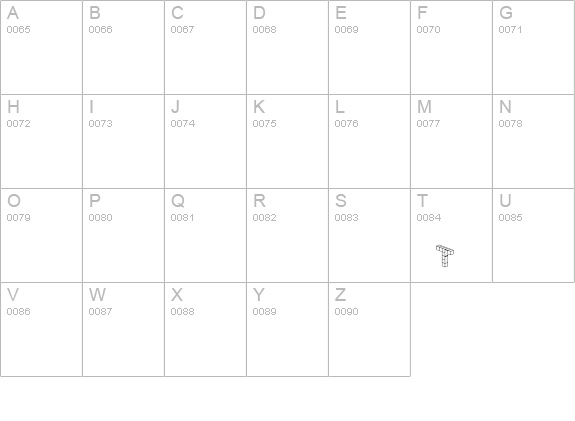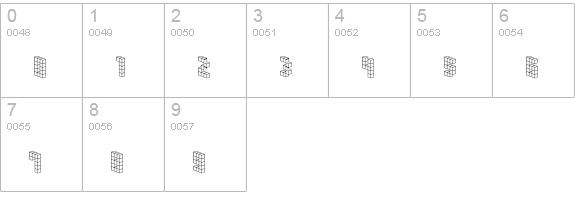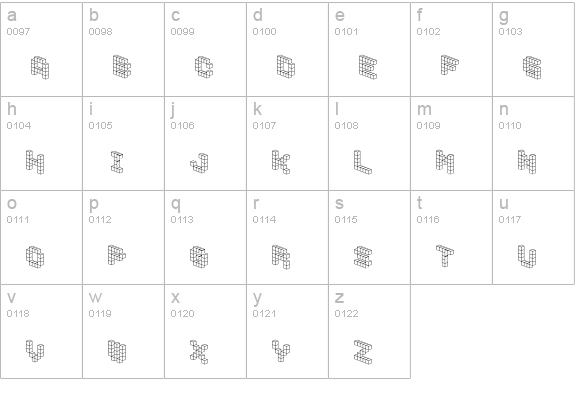
DemonCubicBlockFont Font Details
DemonCubicBlockFont is a visually striking and unique font that will add a touch of boldness and creativity to any project. This font features a captivating combination of sharp edges and geometric shapes, giving it a distinct and powerful appearance. With its cubic block design, it evokes a sense of strength and solidity, making it perfect for designs that require a strong visual impact. Whether you are designing a poster, logo, or any other creative project, DemonCubicBlockFont will undoubtedly make a lasting impression. Its clean and precise lines, combined with its modern and edgy aesthetic, make it a versatile choice for a wide range of design purposes. And the best part is, DemonCubicBlockFont is available for free! You can easily download this font from FontsMarket.com. This means that you can enhance your designs without having to worry about breaking the bank. With DemonCubicBlockFont, you have the freedom to explore your creativity and experiment with different styles, all at no cost. Don't miss out on the opportunity to add this eye-catching font to your collection. Download DemonCubicBlockFont today from FontsMarket.com and embark on a design journey that is both visually stunning and budget-friendly.